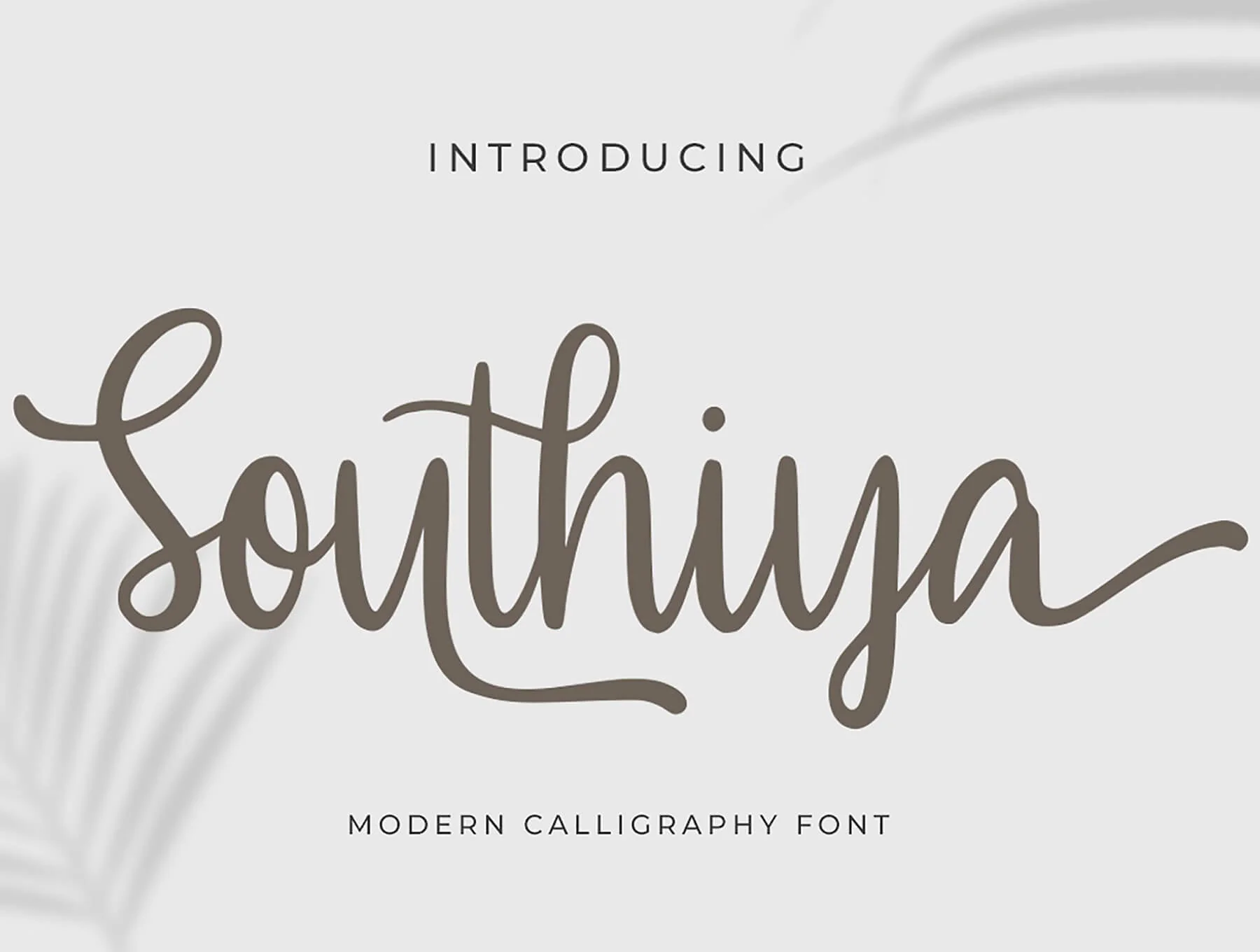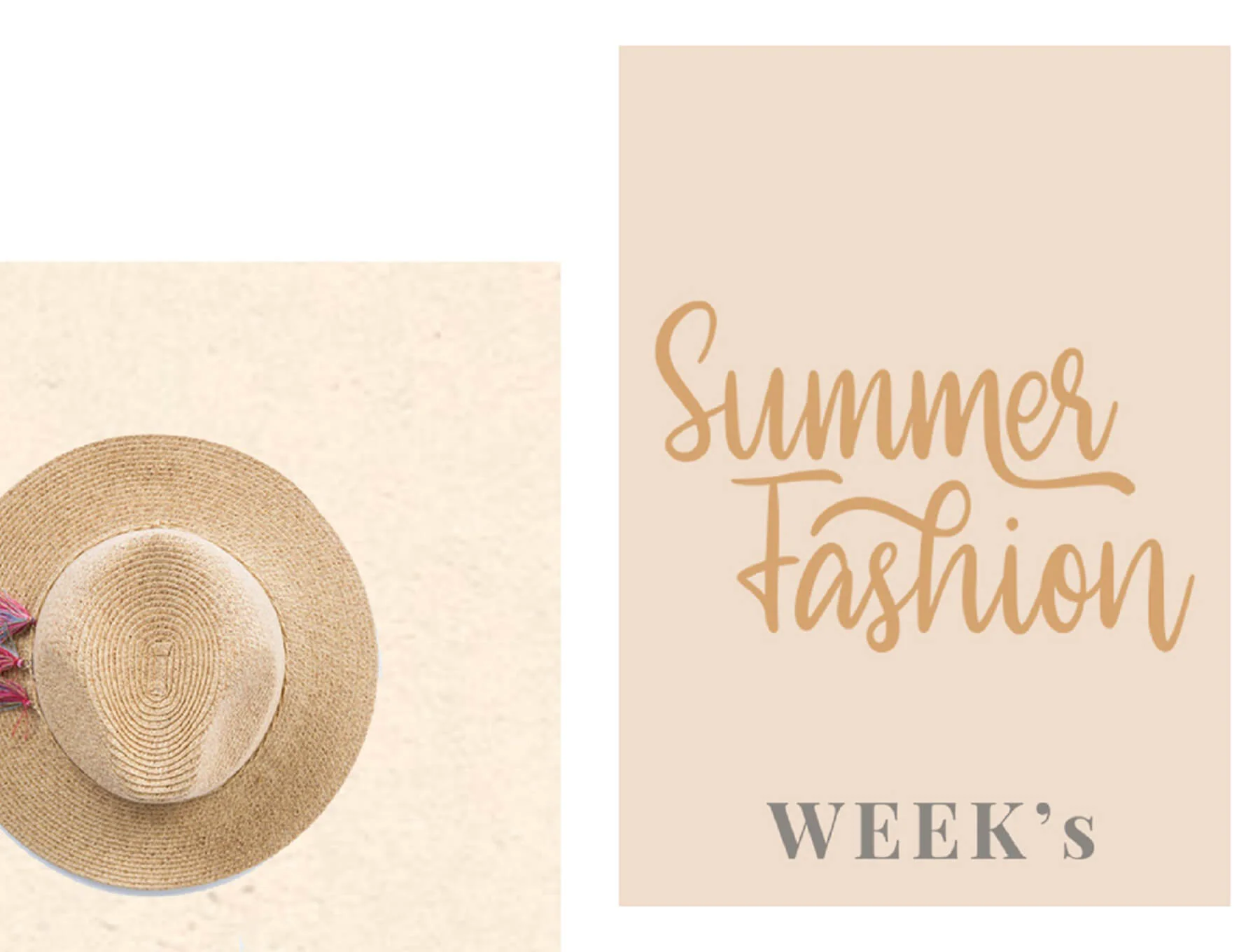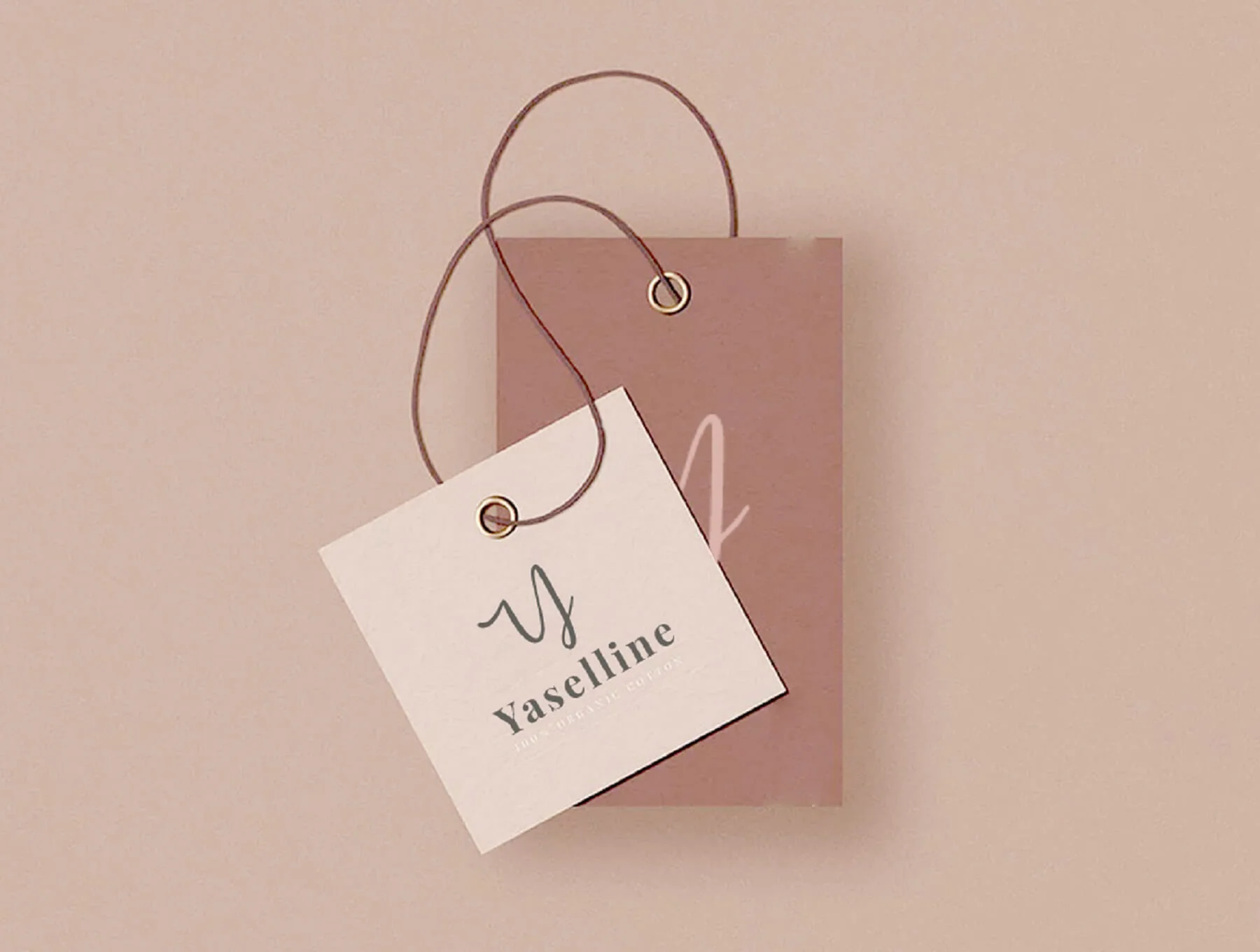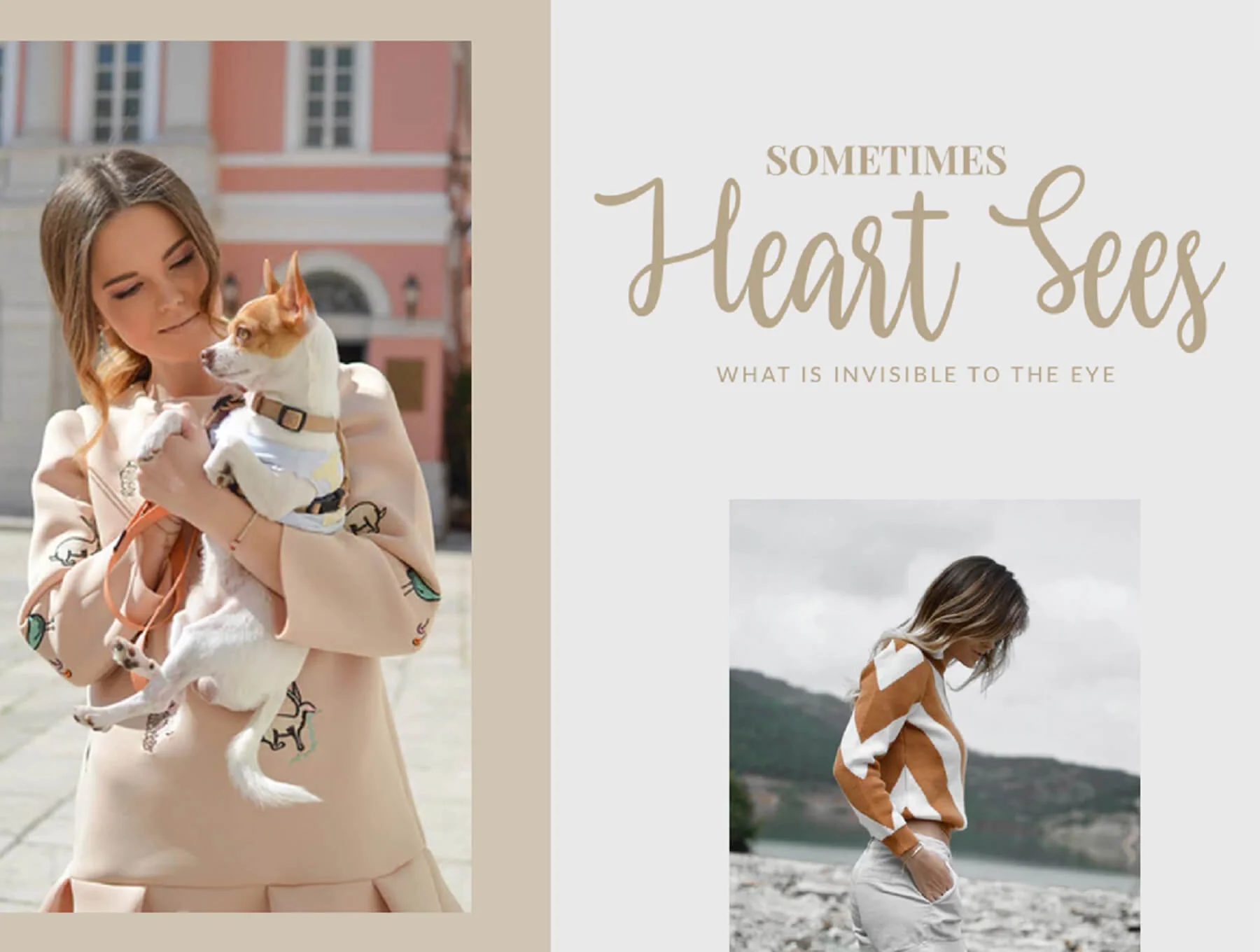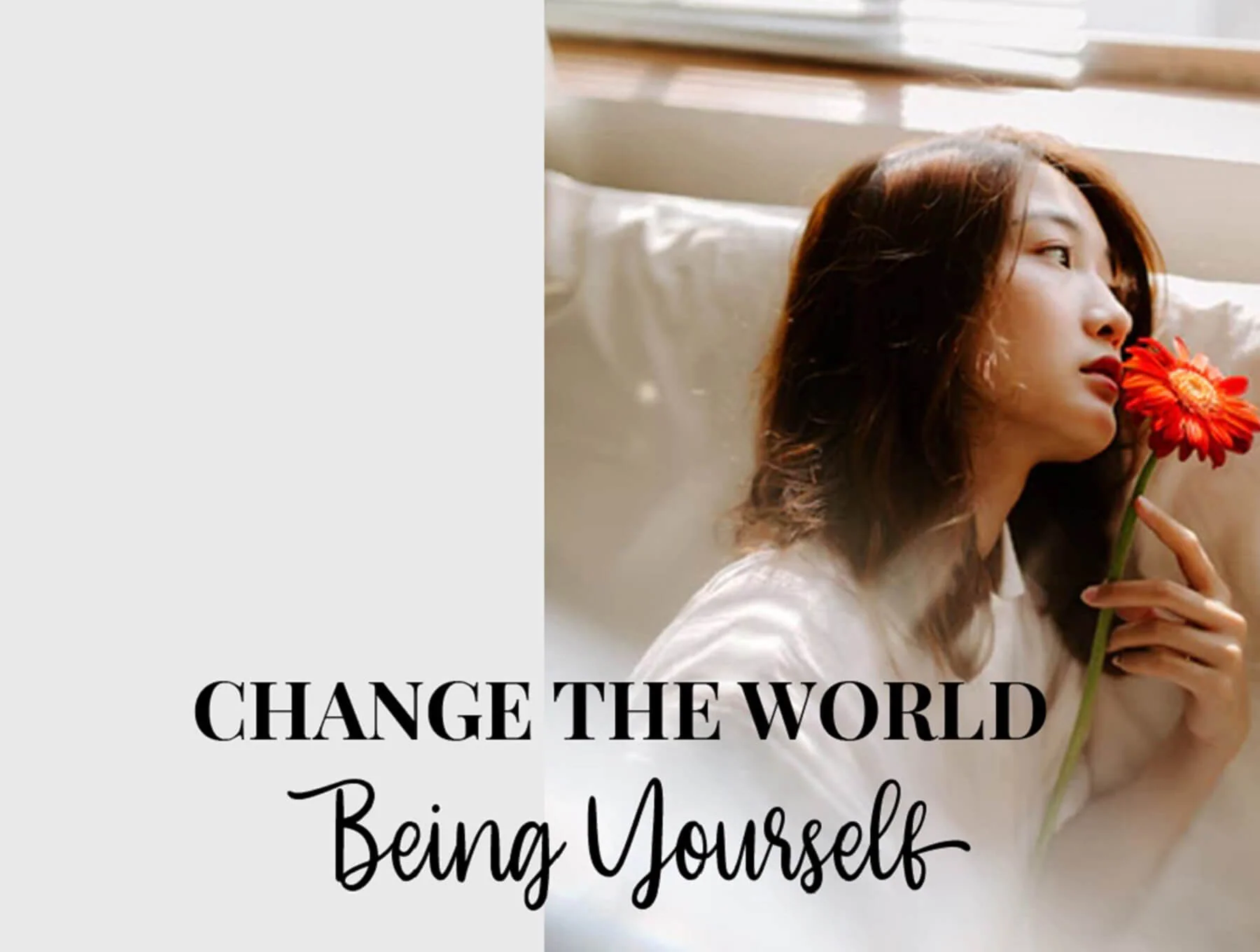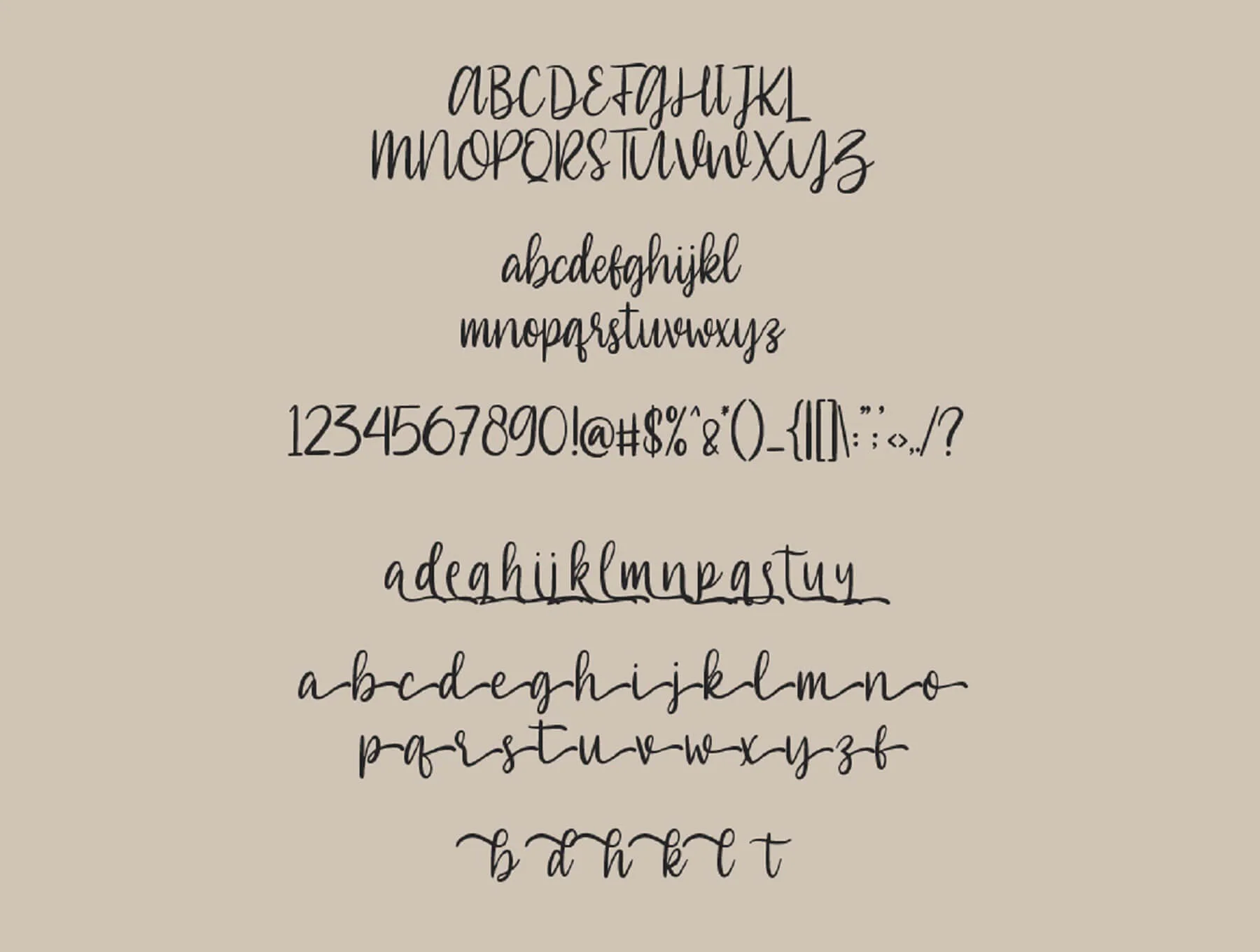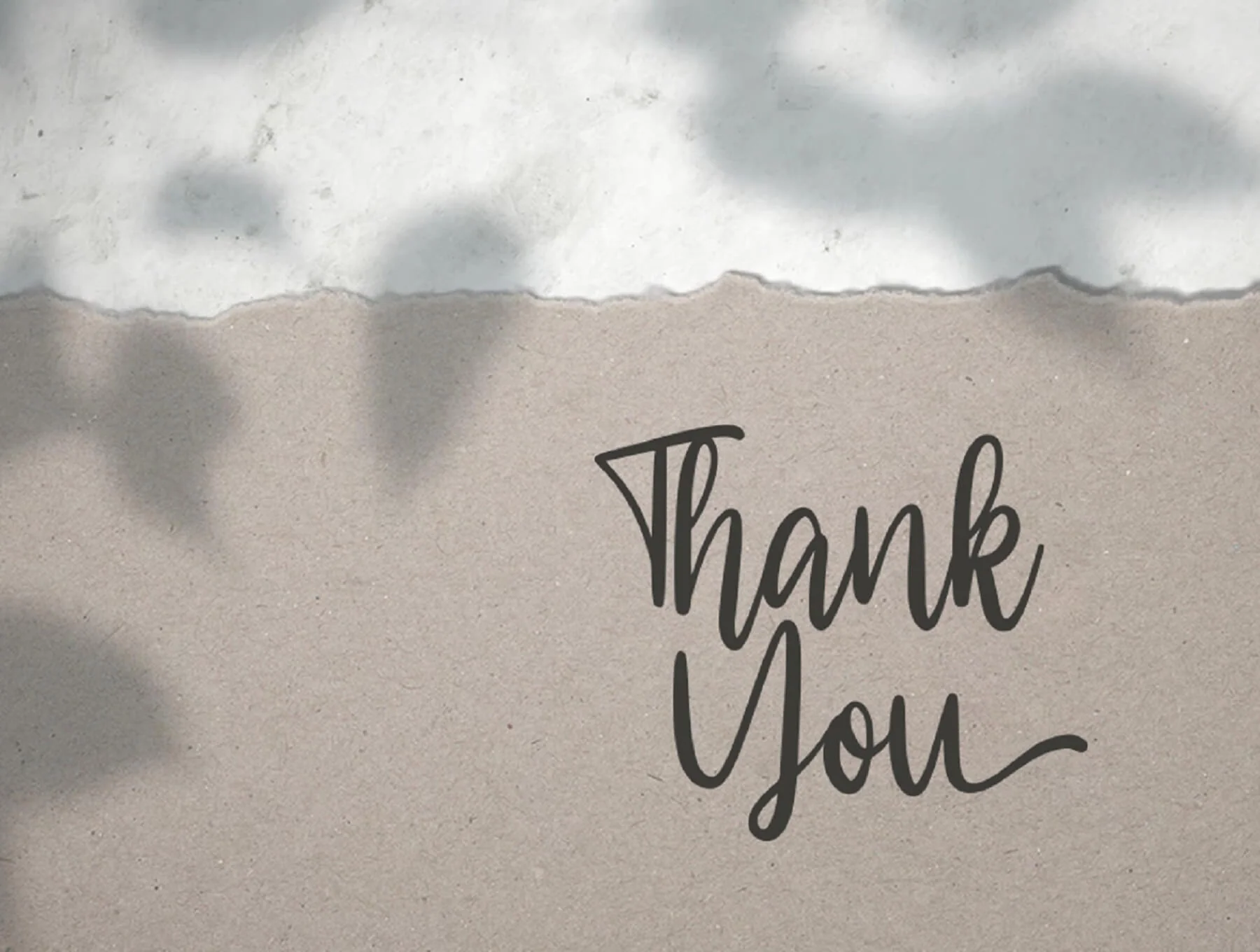
Southiya - Modern Calligraphy Font
Contemporary Calligraphy Typeface
Southiya - Modern Calligraphy Font
Capital and small letters
Numerals and punctuation marks
Southiya is a refined handwritten typeface, carefully crafted to win hearts. With elegant calligraphic roots and a modern, fresh look, it adds charm and sophistication to any project.